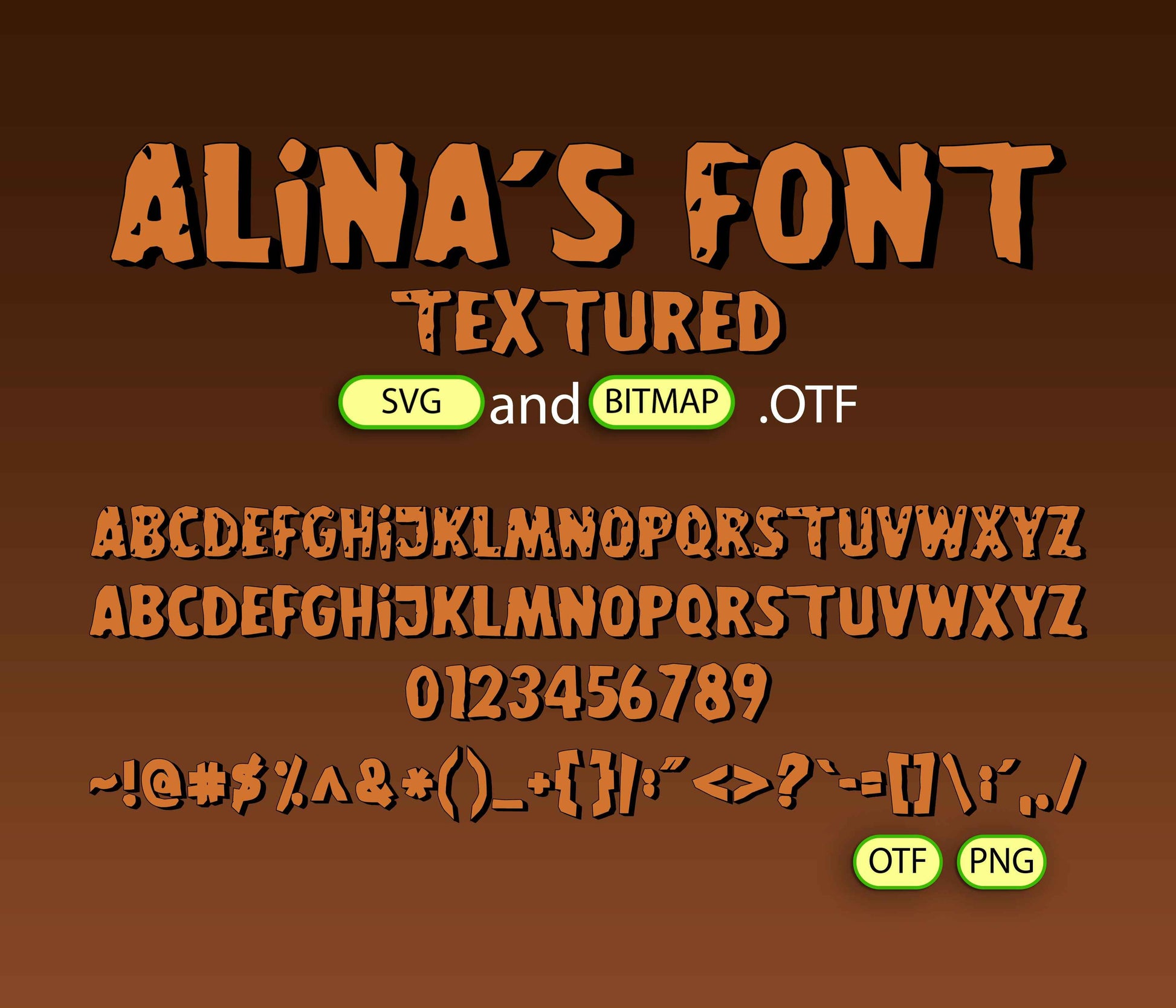
Stone Age Fun Font Textured
Stone Age Fun Font: Inspired by a Classic Cartoon
Step into the whimsical world of Bedrock with our Stone Age Fun font, inspired by a beloved classic cartoon. This font captures the essence of a prehistoric era, characterized by its playful, rugged aesthetic. Each character reflects the quirky, fun-loving nature of a Stone Age family and their community, making it perfect for projects that evoke nostalgia and timeless appeal.
What Font is the Stone Age Fun Font?
Envision a typeface that encapsulates the Stone Age setting and comic style of a beloved cartoon. Our Stone Age Fun font mirrors a distinctive look, with bold, rocky letterforms reminiscent of rudimentary tools and cave dwellings. It includes an extensive character set featuring alphabets, numbers, and special symbols, offering a comprehensive solution for various design projects.
What You Can Do With the Stone Age Fun Font
Feature Highlights and Bonuses
- Textured and Non-Textured Variants: Available in both a playful, Stone Age-inspired style and a clean, non-textured version.
- Comprehensive Character Set: A wide range of characters for complete design versatility.
The Stone Age Fun font is more than just a typeface; it's an homage to a classic cartoon that has delighted generations.